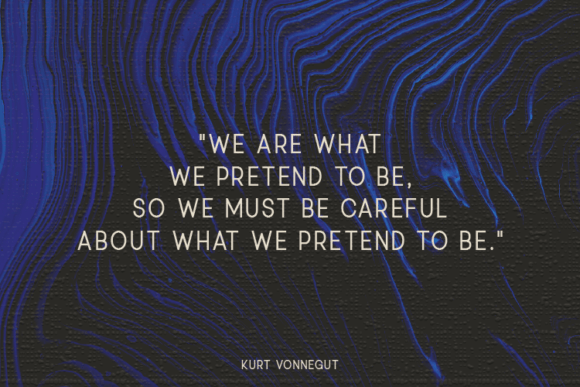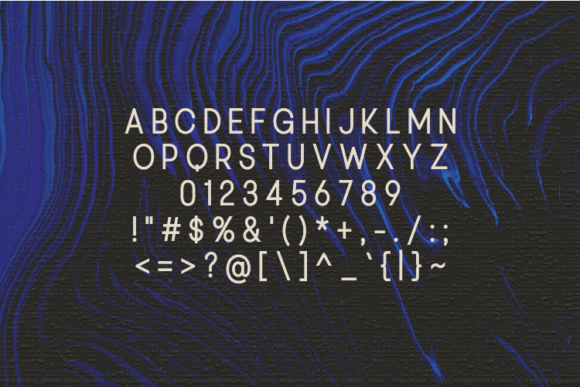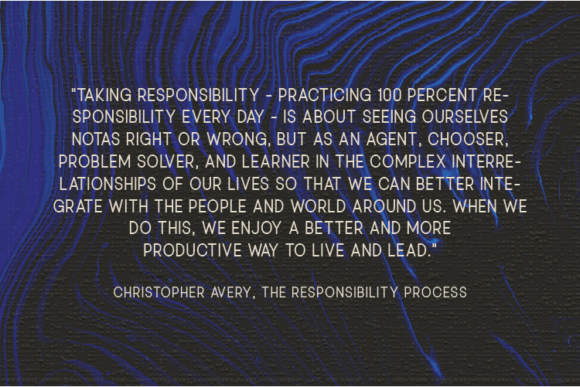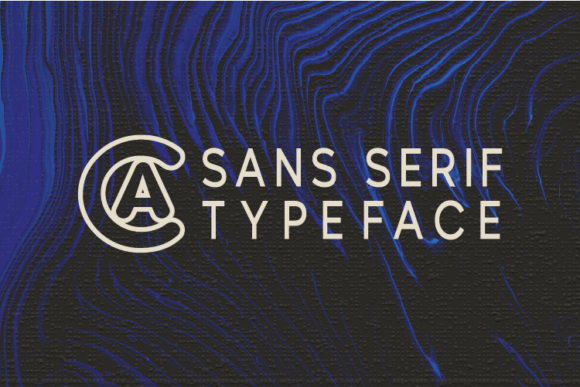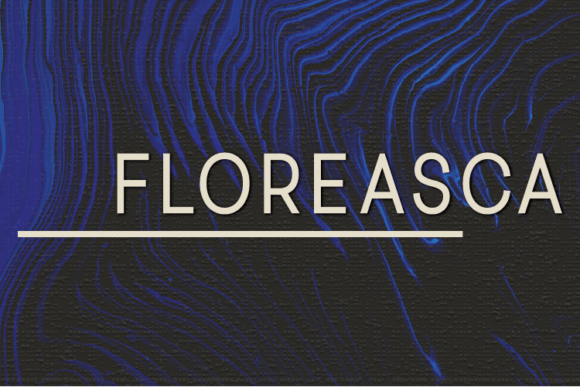
Introducing Floreasca Font: Elevate Your Designs with Modern Elegance
Are you on the hunt for a font that embodies versatility, modernity, and class? Look no further than Floreasca Font, a stunning sans serif typeface designed to breathe life into your creative projects. Whether you’re crafting logos, wedding invitations, quotes, advertisements, or magazine spreads, Floreasca is the perfect companion to help your designs shine.
The Essence of Floreasca Font
Floreasca Font is more than just a typeface; it’s a design statement. Its clean lines, balanced proportions, and elegant curves make it an ideal choice for projects that demand a touch of sophistication. This modern sans serif font is crafted to be highly legible, ensuring that your message is conveyed with clarity and style, regardless of the medium.
One of the standout features of Floreasca Font is its incredible versatility. It seamlessly adapts to various design applications, including:
- Logos: Create memorable brand identities with Floreasca’s unique and professional look.
- Weddings and Invitations: Add a touch of elegance to your wedding stationery, invitations, and thank-you cards.
- Quotes and Advertisements: Make your messages stand out with a font that’s both modern and classy.
- Print and Magazines: Elevate your editorial designs with a font that’s easy to read and visually appealing.
Bringing Your Ideas to Life
Floreasca Font is not just a design element; it’s a catalyst for creativity. When you integrate it into your projects, you’ll notice how it transforms your ideas into visually stunning realities. Here are a few ways Floreasca can enhance your designs:
- Enhance Readability: Its clear and clean design ensures that your content is easy to read, making it perfect for body text and headlines.
- Consistency Across Platforms: Use Floreasca across different mediums, from digital platforms to print materials, for a cohesive brand look.
- Emotional Connection: The modern and classy appearance of Floreasca can evoke a sense of sophistication and elegance, helping you connect with your audience on a deeper level.
Why Choose Floreasca Font?
In a world filled with countless typefaces, what sets Floreasca apart? Here are a few compelling reasons to choose Floreasca for your next project:
- Unique Aesthetic: Floreasca offers a fresh and contemporary look that can set your designs apart from the crowd.
- Highly Versatile: Its adaptability makes it suitable for a wide range of applications, from branding to editorial design.
- User-Friendly: Designed with readability in mind, Floreasca ensures your message is communicated effectively.
Floreasca Font is a game-changer for designers and crafters looking to infuse their projects with a modern, classy vibe. Its versatility, readability, and unique aesthetic make it an invaluable addition to your design toolkit. Whether you’re working on a logo, wedding invitation, or magazine spread, Floreasca is sure to elevate your designs to new heights. So why wait? Explore the possibilities with Floreasca Font today and watch your creative ideas come alive!